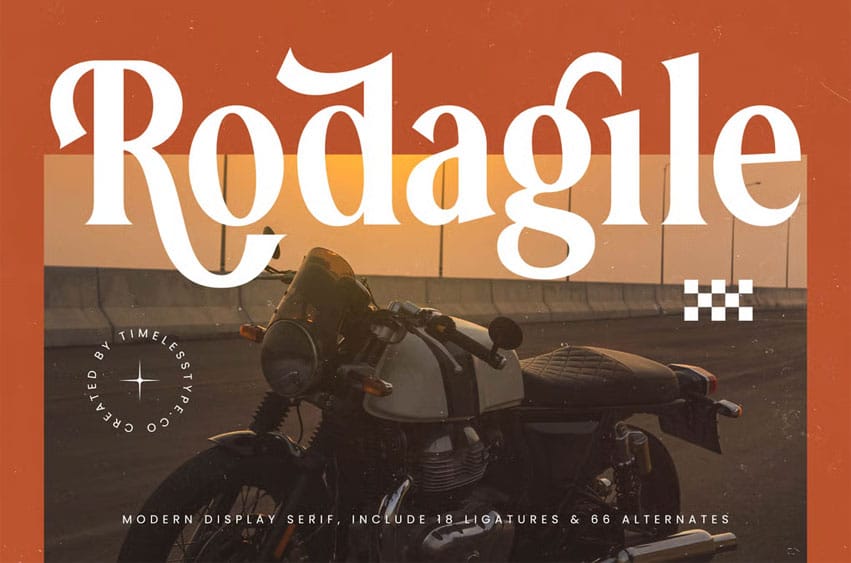
Rodagile Font is a modern display serif font that combines strength, elegance, and vintage racing energy. Featuring 18 ligatures and 66 alternates, this typeface captures the bold aesthetics of retro design with a refined modern twist — perfect for branding, posters, packaging, and lifestyle projects that seek personality and flair.
With its sleek curves and powerful strokes, Rodagile conveys confidence and motion while maintaining a stylish balance of form and readability. Designed for creators who love to mix elegance with attitude, this font is the ideal choice for statement-making visuals.